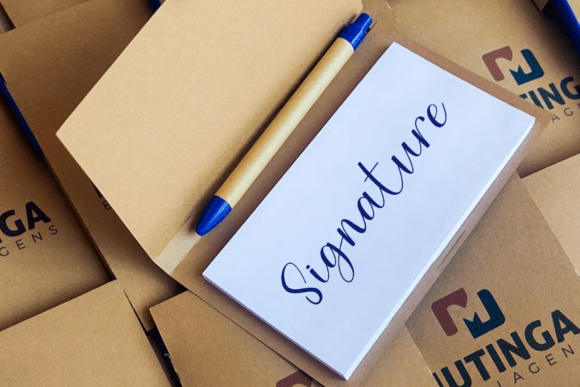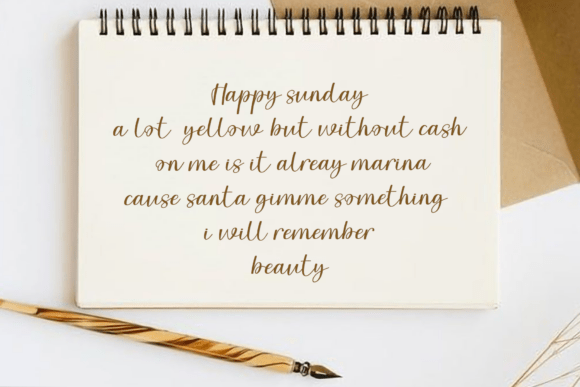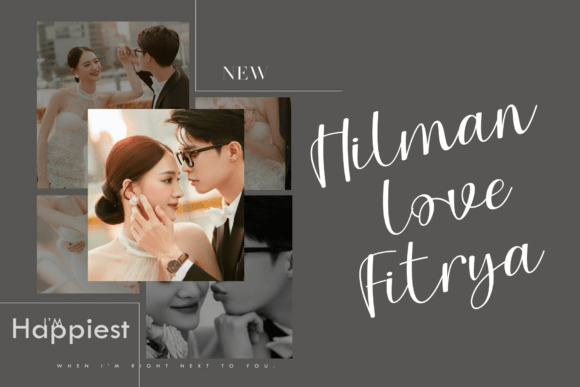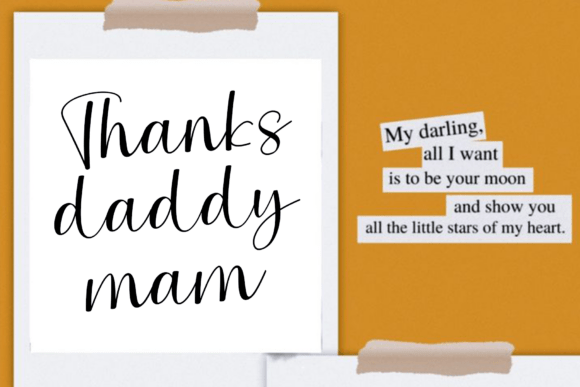
Introduction to Happy Springkle Font
As a designer, there’s nothing quite like the thrill of bringing a creative project to life. You’re brainstorming ideas, sketching out concepts, and experimenting with different fonts until you find the perfect one to make your vision shine. And then, you stumble upon it – the elusive font that sets your design apart from the rest. For me, that font was the Happy Springkle Font, a lovely and timeless handwritten font that instantly elevates any project to the next level.
What sets Happy Springkle Font apart is its unique and beautiful touch that brings designs to life. Whether you’re creating eye-catching logos, branding, or quotes, this font is sure to make a lasting impression. Plus, with its versatility and high-quality design, it’s a valuable resource for designers looking to take their work to the next level.
Key Features of Happy Springkle Font
- High-quality design resource ideal for creative projects, offering a unique and playful touch.
- Perfect for adding a pop of color and whimsy to designs, from digital graphics to print materials, and everything in between.
Honest Review: Happy Springkle Font
As a designer, I’m always on the lookout for high-quality design resources that can elevate my creative projects. I recently stumbled upon the Happy Springkle Font, and I must say it’s been a game-changer.
What works well: ✨ The font is incredibly versatile, making it perfect for a wide range of design projects. The playful, whimsical feel of the font adds a touch of magic to any layout, from digital designs to print materials. The font also comes with a transparent background, which makes it easy to customize and integrate into any design.
Any limitations: ⚠️ While the Happy Springkle Font is generally easy to use, I did find that it can be a bit tricky to read in small font sizes. Additionally, the font may not be suitable for formal or professional designs, as it has a more playful tone.
Overall impression: I’m thoroughly impressed with the Happy Springkle Font. It’s a fantastic addition to any designer’s toolkit, and I’ve already used it in several projects. If you’re looking for a fun, high-quality font to add some personality to your designs, I highly recommend giving the Happy Springkle Font a try.
How to Use Happy Springkle Font
The Happy Springkle Font is a high-quality design resource perfect for creative projects that require a touch of whimsy. With its unique and playful style, this font is ideal for designers looking to add a personal touch to their work.
Tips for Getting the Most Out of Happy Springkle Font
To get the most out of the Happy Springkle Font, experiment with different font sizes, colors, and combinations. Use it to create custom graphics, illustrations, and other design elements that showcase its unique style.
The Happy Springkle Font is perfect for a variety of creative projects, including:
- Wedding invitations and decorations
- Party and event graphics
- Children’s book illustrations
- Custom graphics and logos